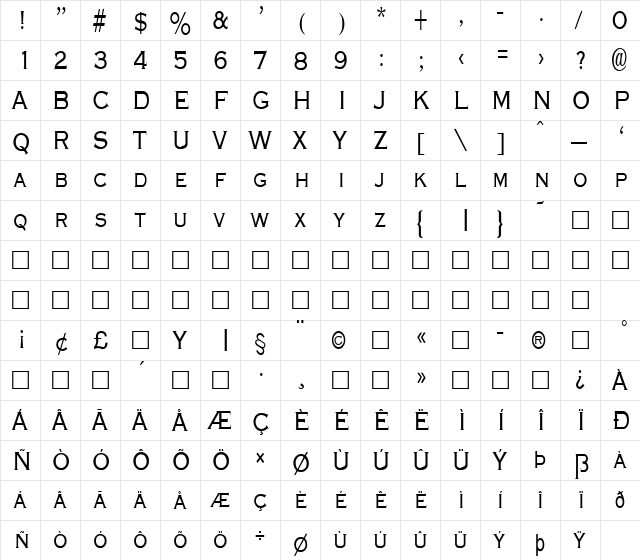
FZ ROMAN 13 COND Light Font Preview
Design Context for FZ ROMAN 13 COND Typeface
FZ ROMAN 13 COND offers clean, dependable letterforms without strong stylistic allegiance, making it a practical choice for designers who need flexibility. Its slender proportions lend an understated elegance to any composition. Its narrow stance lets it pack a punch even in space-constrained designs.